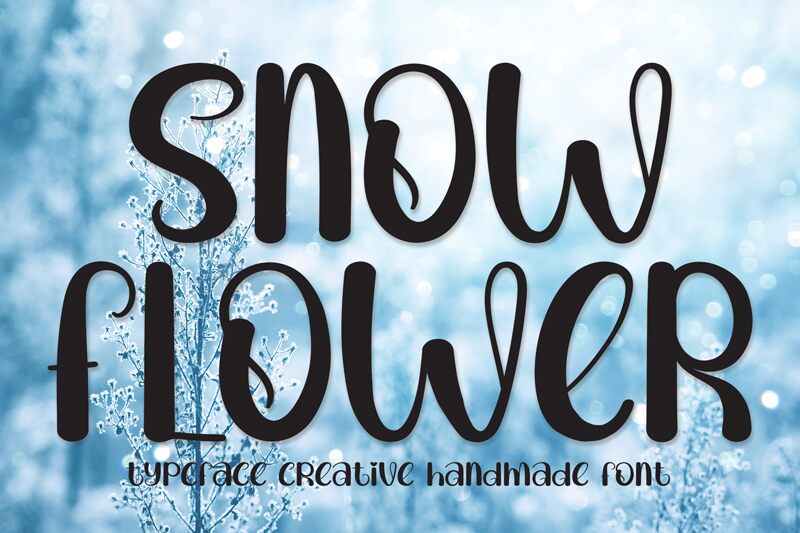
Snow Flower
"Snow Flower" is a captivating font exuding a smooth, brush-like elegance. Crafted by designer Andi Moz, this font showcases a harmonious blend of organic fluidity and modern sophistication. The flowing, calligraphic strokes create a sense of effortless grace, while the rounded terminals lend a refined, polished aesthetic.
Offering versatility across various design applications, "Snow Flower" excels in branding, editorial, and promotional materials. Its distinctive style effortlessly conveys a sense of artistry and refinement, making it an ideal choice for luxury products, high-end fashion, and elegant event collateral. The font's inherent versatility allows for seamless integration into both digital and print mediums, ensuring a cohesive visual identity.